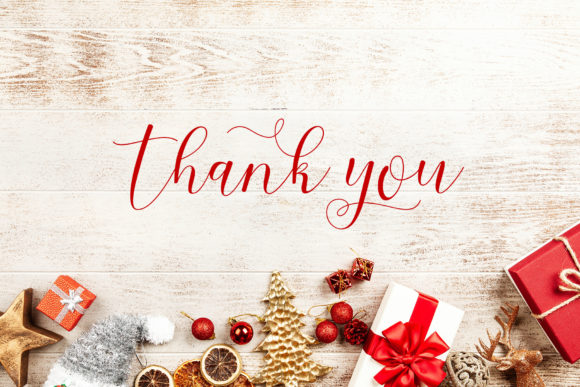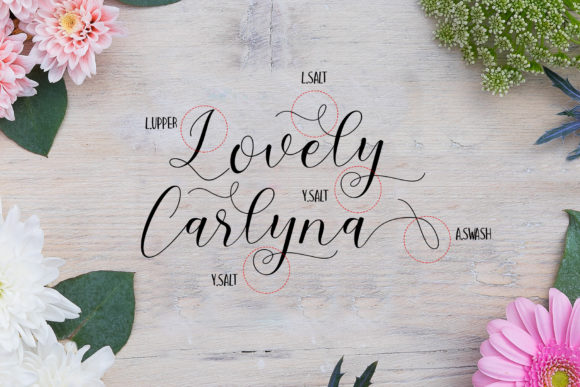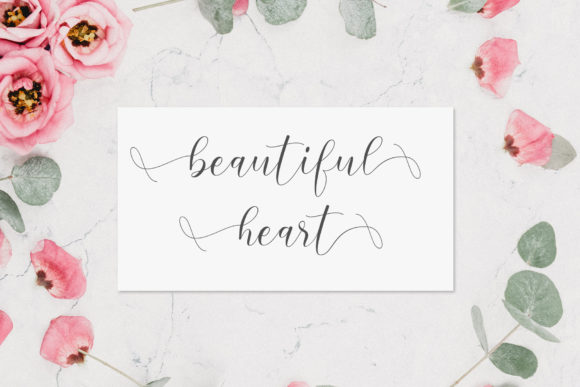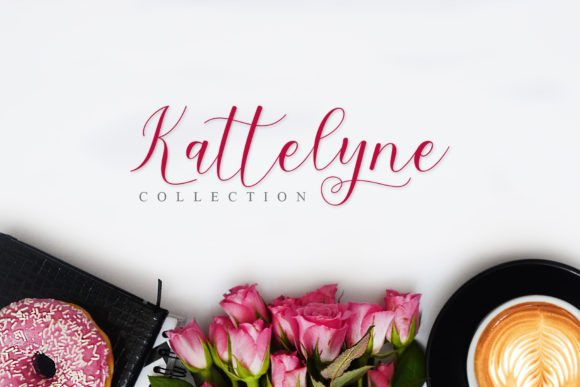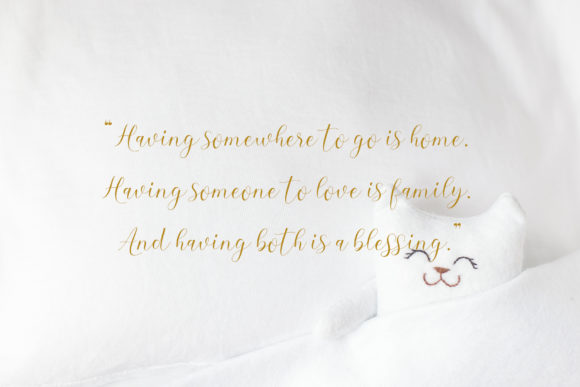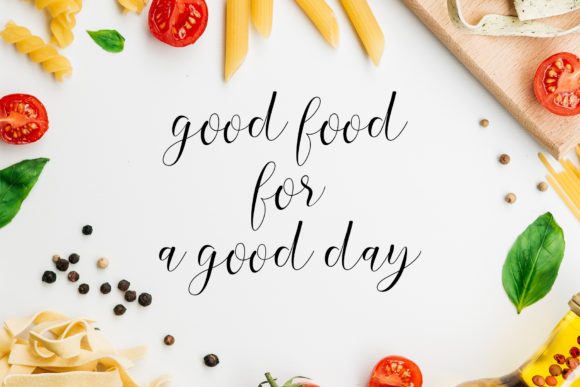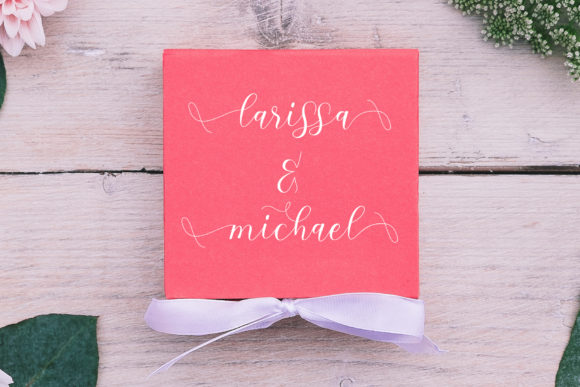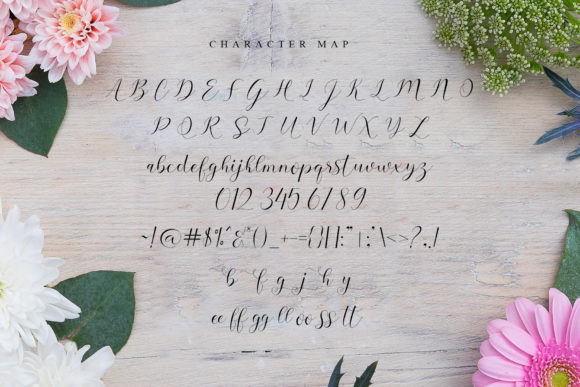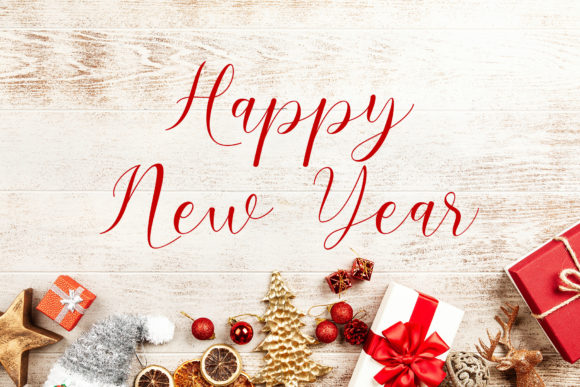
HomeScript FontsLovely Carlyna Font Script Fonts Lovely Carlyna Font FacebookXPinterestWhatsApp Lovely Carlyna Font Poster 2 Lovely Carlyna Font Poster 3 Lovely Carlyna Font Poster 4 Lovely Carlyna Font Poster 5 Lovely Carlyna Font Poster 6 Lovely Carlyna Font Poster 7 Lovely Carlyna Font Poster 8 Lovely Carlyna Font Poster 9 Lovely Carlyna Font Poster 10 About Lovely Carlyna Font Lovely Carlyna is a cute handwritten font. It has beautiful swashes that will make your design look amazing. DOWNLOAD ON CREATIVE FABRICAThis font is sold and delivered by Creative Fabrica. Font Canyon may earn a commission if you buy through this link. People also explored Quickstages Font Family Moments Font Hushpites Font Cassia Font Howie Font Donkey Font Milky Font Hunzello Light Font Toast Font 394 0 TagsLovely Carlyna Font Previous articleBungalow FontNext articleThomastane Font LEAVE A REPLY Cancel reply Comment: Please enter your comment! Name:* Please enter your name here Email:* You have entered an incorrect email address! Please enter your email address here Website: Save my name, email, and website in this browser for the next time I comment. Personal Use Free Bettari Personal Use Free Read more about this font Baby Magnolia Personal Use Free Read more about this font Alinda Personal Use Free Read more about this font Evensong Hollow Personal Use Free Read more about this font BLOG Transform Your Website: Elevate Your Typography with 7 Best Web Font Generators Are you ready to transform your website's typography from ordinary to extraordinary? Great! Today, we're diving into the world of web font generators, which... Exploring Font Trends The 10 Best Handwriting Fonts to Add Personality to Your Designs To increase your work productivity, choose the most readable fonts.